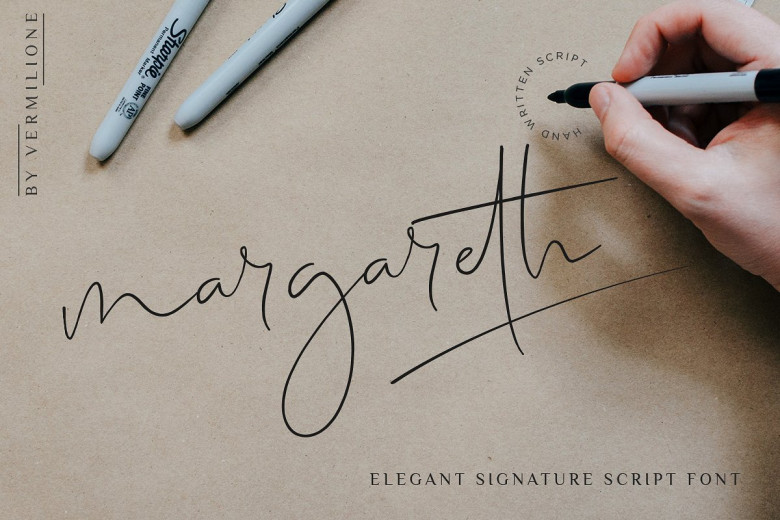
Margareth Signature Font
Introducing Margareth Font – A elegant signature script font with original handwriting style, looks very natural and beautiful. Interesting scripts as smooth, clean, feminine, sensual, glamorous, simple and very easy to read, because there are many fancy and simple letter connections.
It is designed and shared by Vermilione. They also work well with something like cosmetics, weddings, quotes & all kinds of signature stylish logos. You won’t get cute, whimsical, funny logos with this font. MARGARETH also includes full set of uppercase and lowercase letters, multilingual symbols, numerals, punctuation. The font has thin pen ink texture, so would be perfect for all types of printing techniques you can do embroidery, laser cut, gold foil etc.